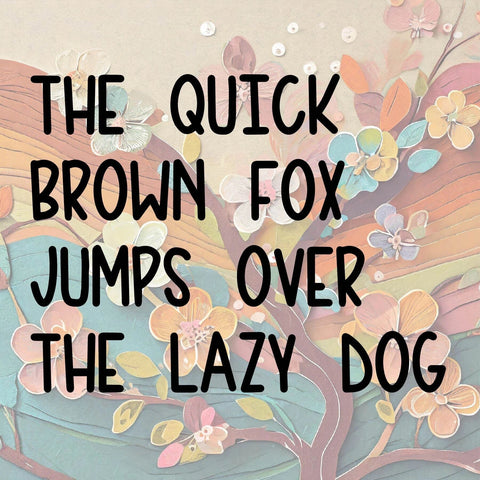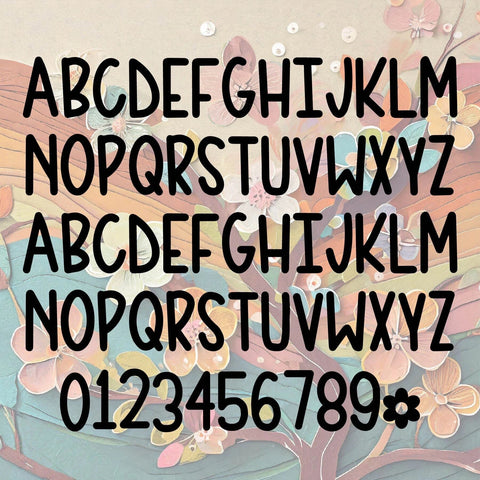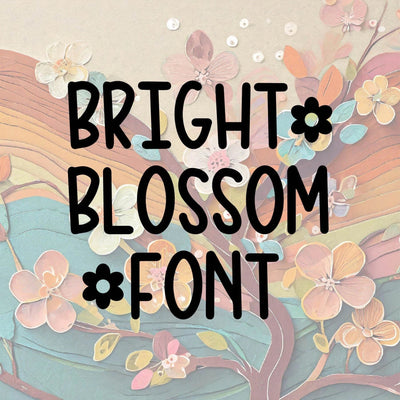
Bright to Blossom Handwriting Font OTF, Fonts for Crafting, Handwritten Font
This font will be perfect for all your Craft projects! Use it to make custom shirts, keychains, valentines, tags, bags, and whatever else you can think of!